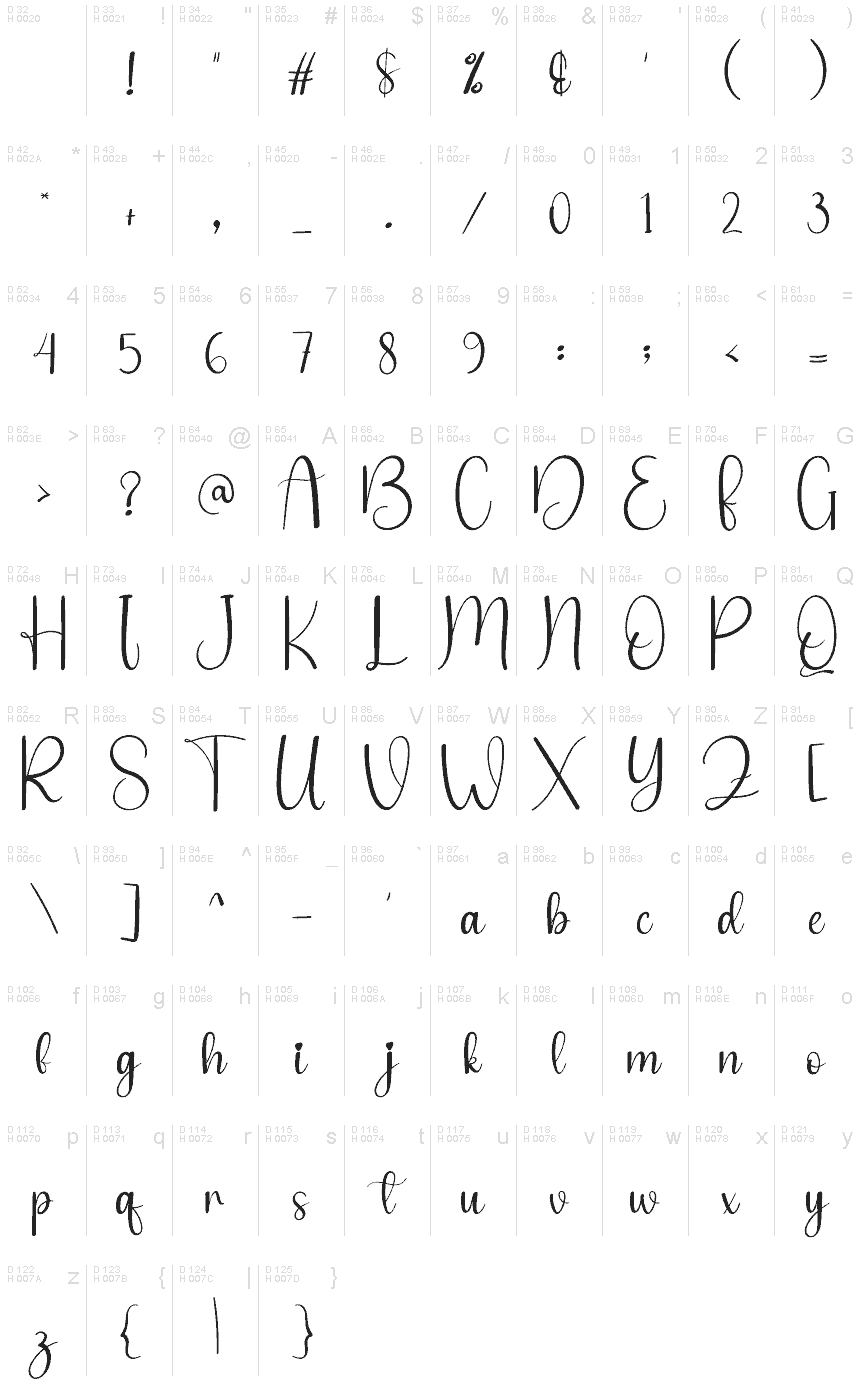
The December
The December font is a free handwritten font designed by Andi Moz. Featuring a striking artistic approach, The December comes in casual script letters that make up an unmatchable unique font. With smooth transitions and natural curvature, the font captures the essence of freehand writing and presents it in digital format.
The script measures at a standard width and a medium weight which puts it to good use for headlines, logotypes, general display purposes or marketing material. It is also great for luxurious branding design, storytelling books cover and inside pages layout (kids or adult), perfume product packaging design and more.